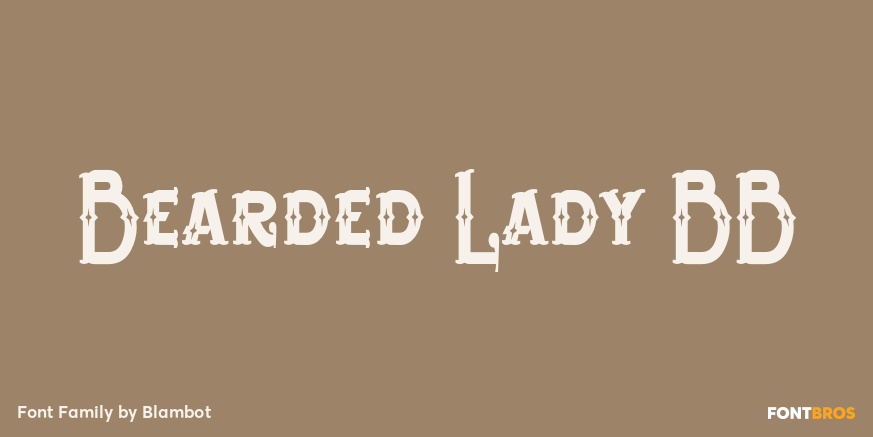
Bearded Lady BB
About Bearded Lady BB
Step right up! She\’ll steal your heart! Designed with the hand-painted signs of the traveling circus sideshow in mind, BeardedLady BB is designed so that the lowercase keys are accented by a taller, center-justified, upper-case set.